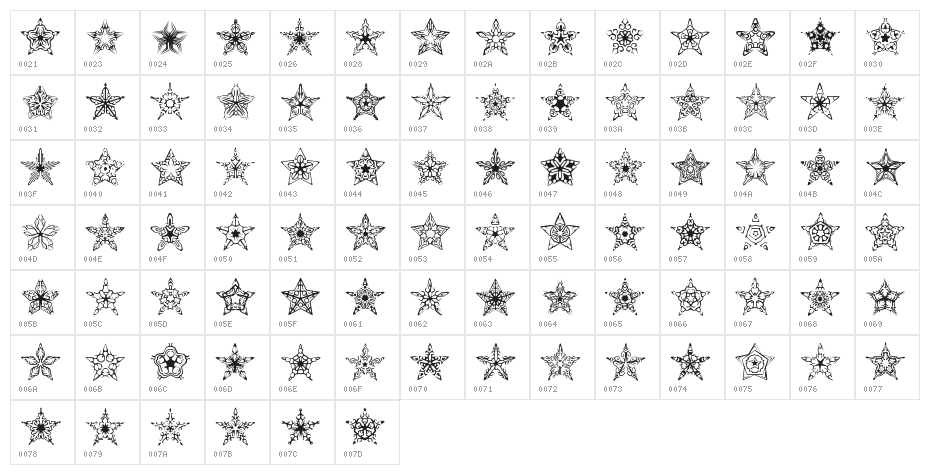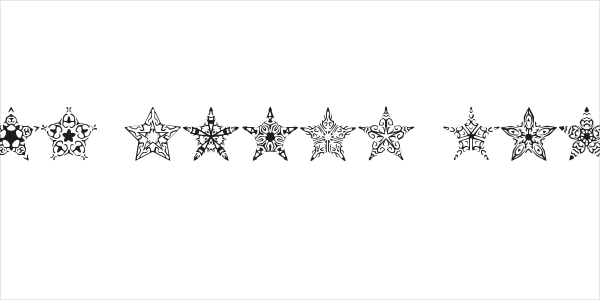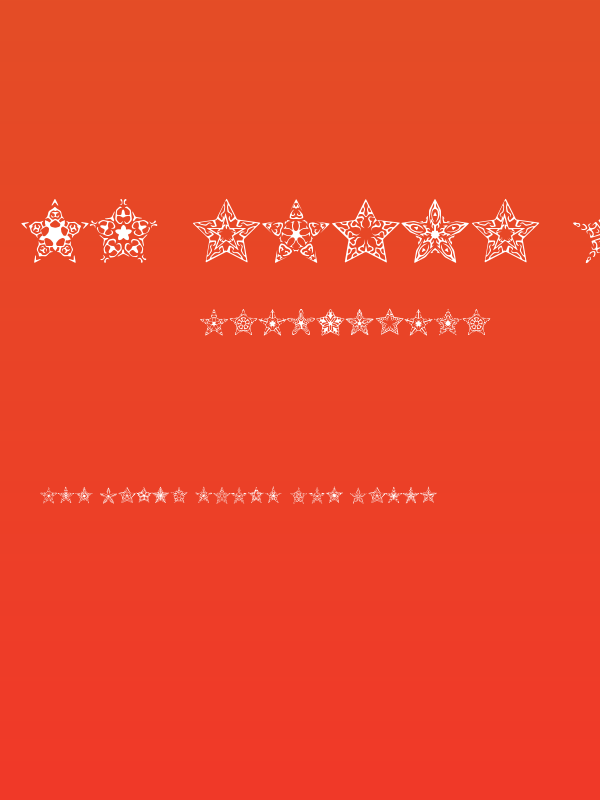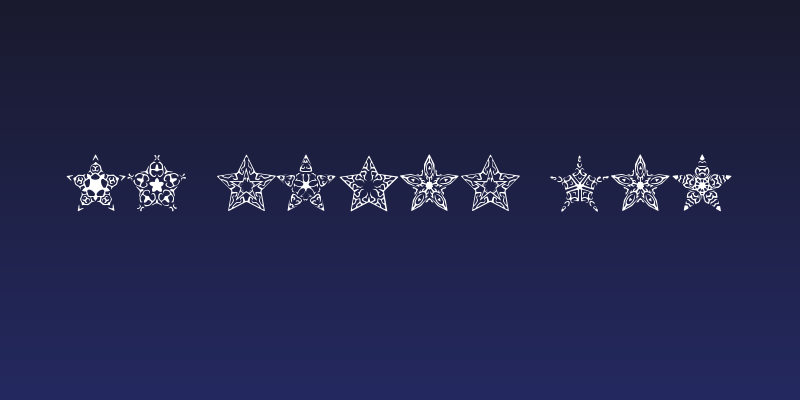
90 Stars BRK Font
90 Stars BRK Description
This is not a valid font. The image contains decorative star designs, each uniquely styled with intricate patterns and details. These stars vary in complexity, featuring geometric shapes, floral motifs, and abstract elements. The designs are highly ornamental, showcasing a wide range of artistic expressions within the star shape. They are more suitable for decorative purposes rather than typographic use.
| Use Case | Decorative elements, not suitable for text. |
| Proposed Projects | These star designs could be used for decorative borders, holiday cards, scrapbooking, or as embellishments in graphic design projects. |